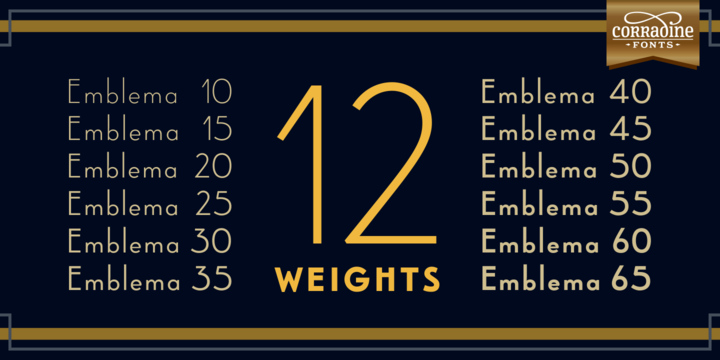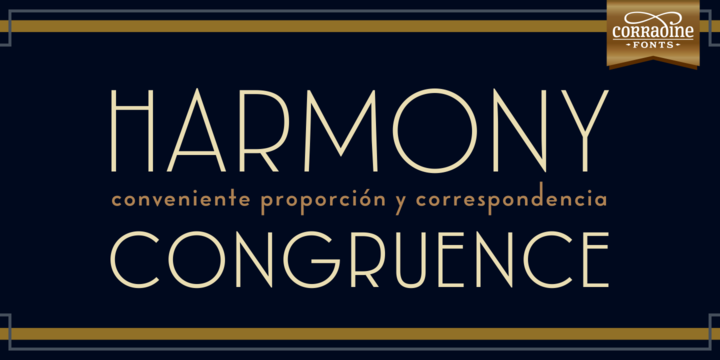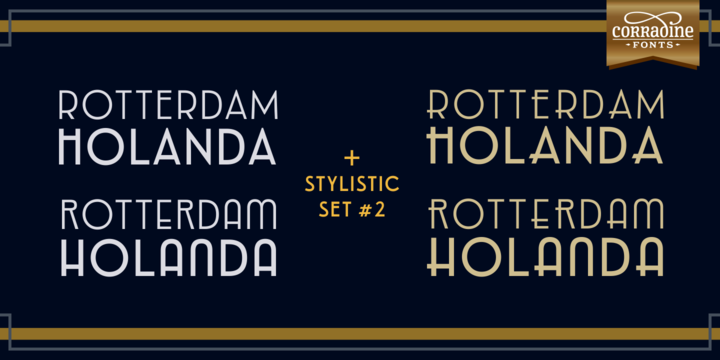
Emblema Family Font
About the Emblema Family Font
The wait is over! The incredible Emblema Family Font is now available for your design toolkit. Emblema is an evocative font with an Art Deco style from early decades of the 20th Century. Its geometric shapes give it a clean and modern look to the designs where it is applied.
Emblema excels in headline treatments, logos, and short-form text within branding materials and posters. Its strong geometric forms command attention, making it ideal for projects requiring a bold and sophisticated presence. However, its Art Deco styling and relatively high x-height make it less suitable for extended body text or user interface elements where readability over long passages is crucial.
For effective pairings, consider contrasting Emblema with a clean sans-serif like Futura or a neutral serif such as Garamond. These pairings provide balance, allowing Emblema’s geometric strength to shine while maintaining legibility. A script font, used sparingly, could add a touch of vintage glamour, complementing Emblema’s Art Deco roots.
Emblema projects an air of confident modernity with a touch of vintage elegance. It’s a versatile choice for brands aiming for a refined, authoritative image – think luxury goods, architectural firms, or high-end lifestyle products.
Emblema Family Font Usage Examples
Emblema Family Font Example